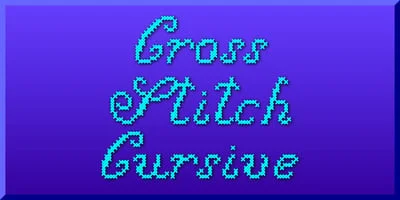
Cross Stitch Cursive Font
Cross Stitch Cursive Font is perfect for needlework pattern designs, embroidery workshop branding, handcraft boutique marketing, sewing circle communications, traditional needlework tutorials, and artisanal textile project materials. Its crafted character makes it ideal for embroidery supply stores, quilting guilds, cross-stitch pattern publishers, handicraft educators, and any application requiring handstitched typography that conveys traditional needlework artistry, handmade authenticity, and the patient dedication of time-honored embroidery craftsmanship.
Cross Stitch Cursive Font is exciting because it beautifully recreates the meticulous artistry and handcrafted elegance of traditional cross-stitch embroidery through carefully designed letterforms that mirror the precise stitching patterns found in heirloom needlework. Its stitched proportions and handcraft details evoke the meditative patience and skilled craftsmanship required for fine embroidery work, making it perfect for brands celebrating traditional textile arts and handmade heritage. The font's needlework character transforms digital text into expressions of stitched artistry.
Cross Stitch Cursive Font family includes handcraft-inspired weight variations typically featuring Light, Regular, and Medium options with stitched styling that maintains traditional needlework authenticity. The family often incorporates embroidery symbols, needlework ornaments, and craft elements designed for textile applications, providing designers with comprehensive tools for creating authentic, cross-stitch-focused typographic compositions.
When selecting traditional needlework typography solutions, Cross Stitch Cursive Font represents an exceptional choice for handcraft and textile projects. This artisanal typeface brings instant needlework authenticity to any design, making it invaluable for craft stores, embroidery instructors, and handmade textile businesses celebrating traditional needlework. Whether you're developing cross-stitch pattern publications, creating embroidery workshop materials, or designing handcraft boutique branding, Cross Stitch Cursive Font provides the handstitched elegance and needlework authenticity essential for honoring traditional textile craftsmanship in today's handmade-focused craft marketplace.